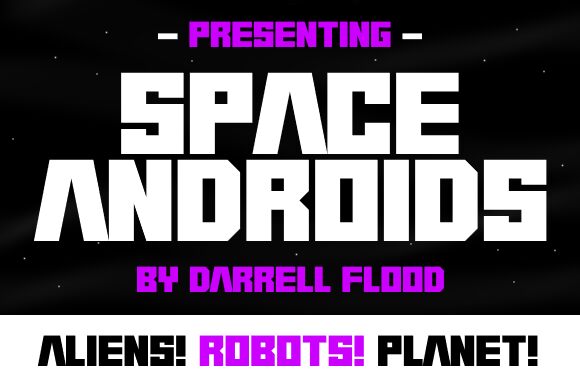
Space Androids
Space Androids, designed by Hawtpixel, is a display font that captures the essence of futurism with its bold and commanding presence. Its extra-bold weight combined with a semi-expanded width projects strength and confidence, making it an ideal choice for projects that require a touch of the cosmic and cutting-edge.
The aesthetic appeal of Space Androids lies in its clean lines and sharp angles, which evoke images of interstellar travel and advanced technology. The font's style is unmistakably futuristic, suggesting it would be perfectly suited for science fiction movie titles, tech startup logos, or promotional materials for innovative products.
The visual impact of Space Androids is immediate—its characters demand attention while remaining legible. This makes the font not only a stylistic statement but also practical for various applications where clarity cannot be compromised.
In the realm of creative projects, Space Androids offers versatility due to its distinctive style without sacrificing readability. Whether used in digital media or print, this font can set the tone for an otherworldly experience and propel any design into the future.